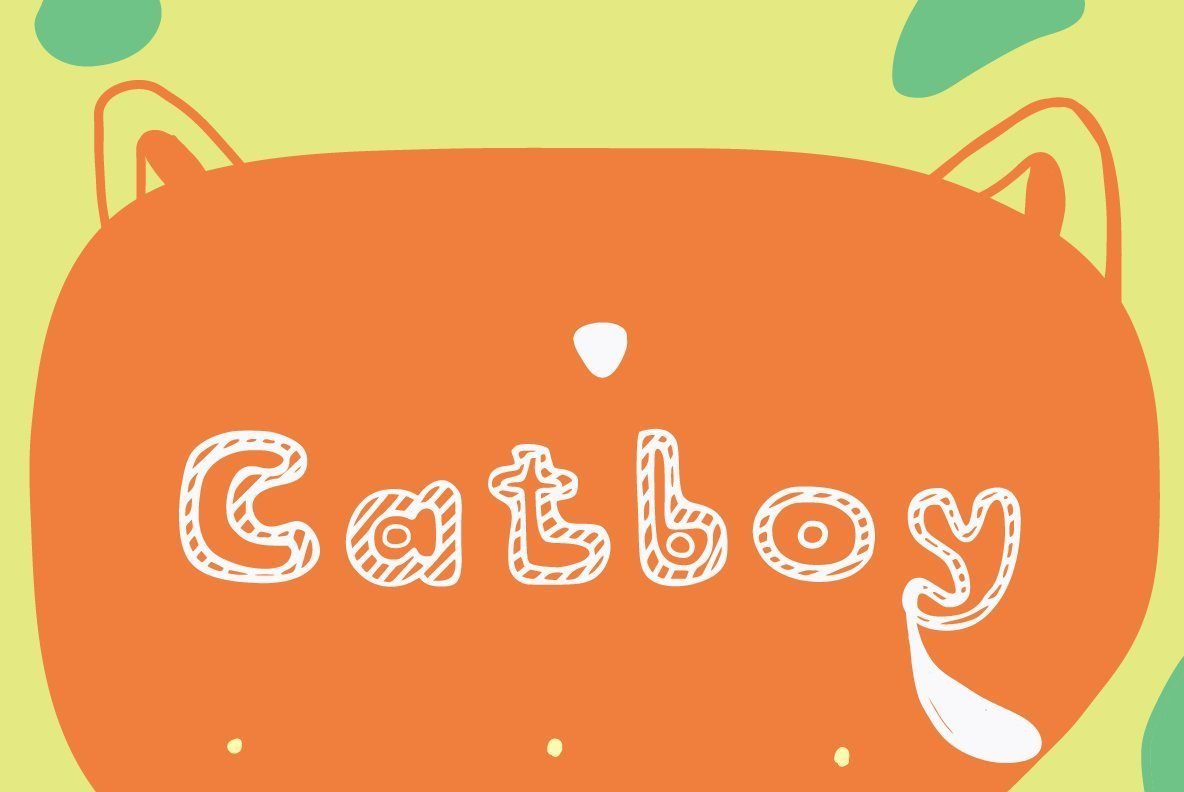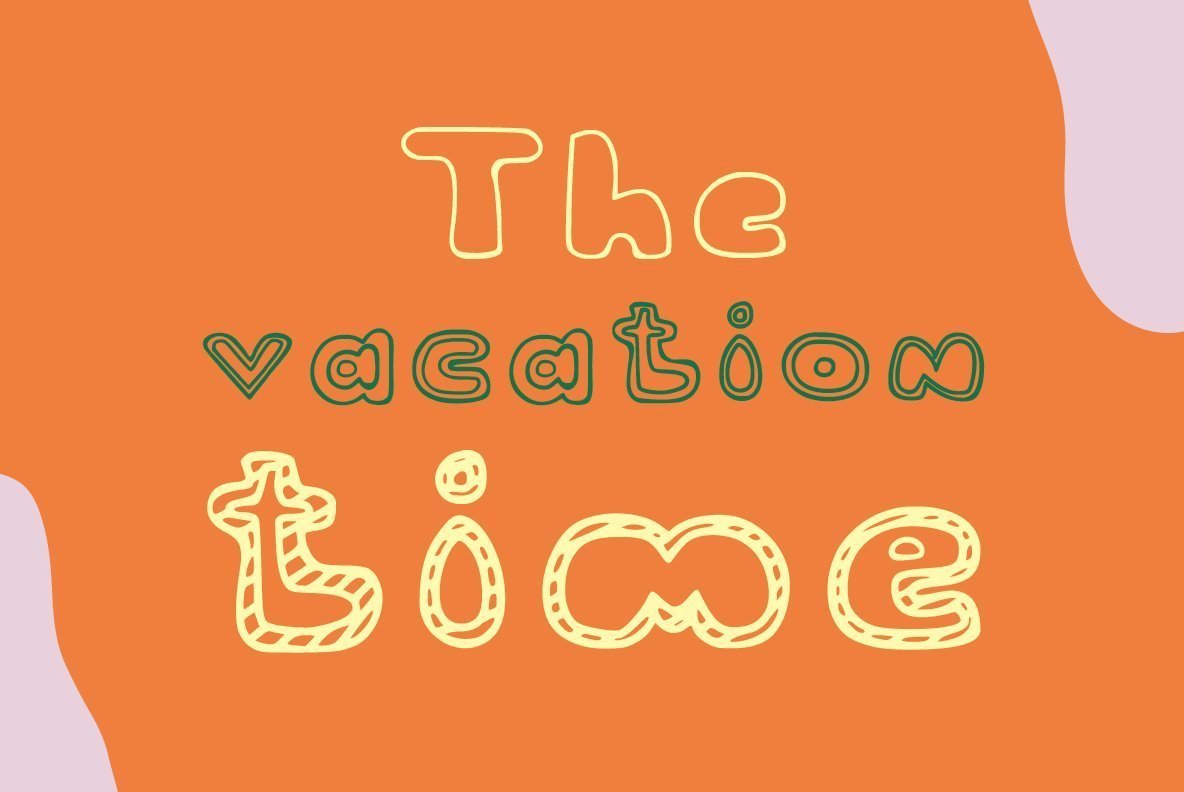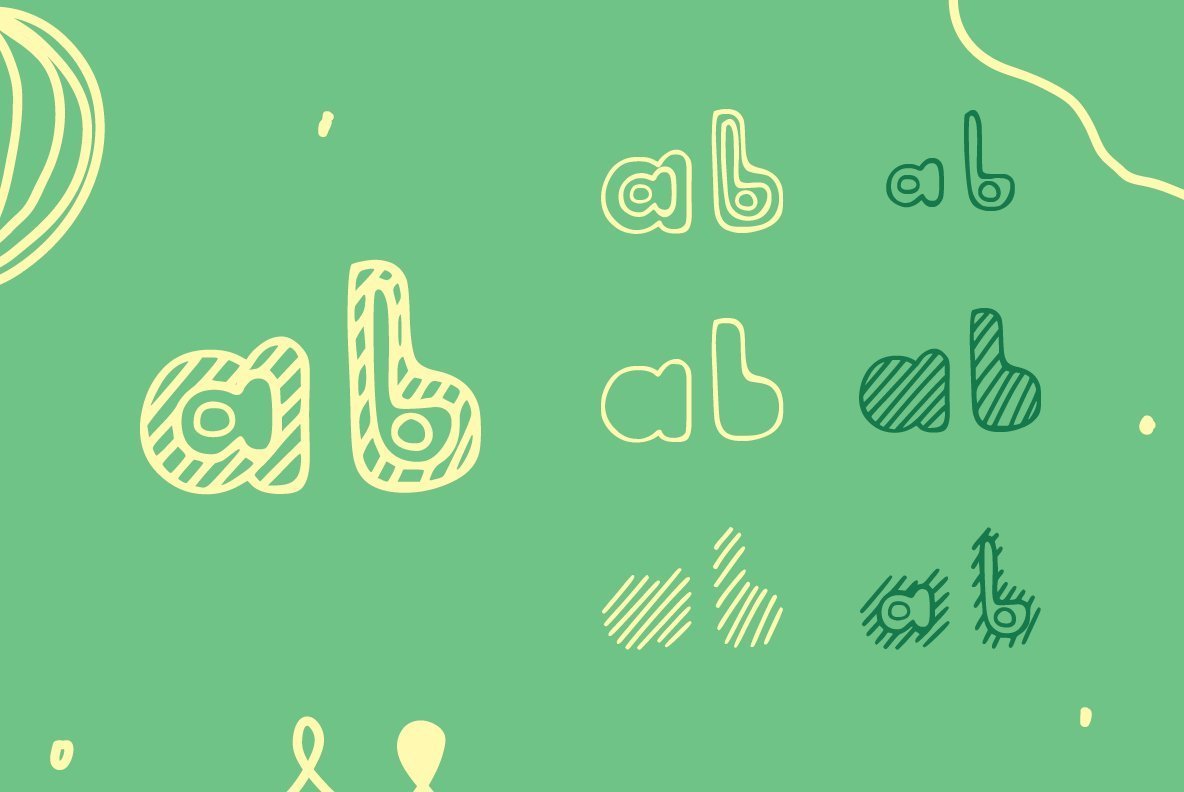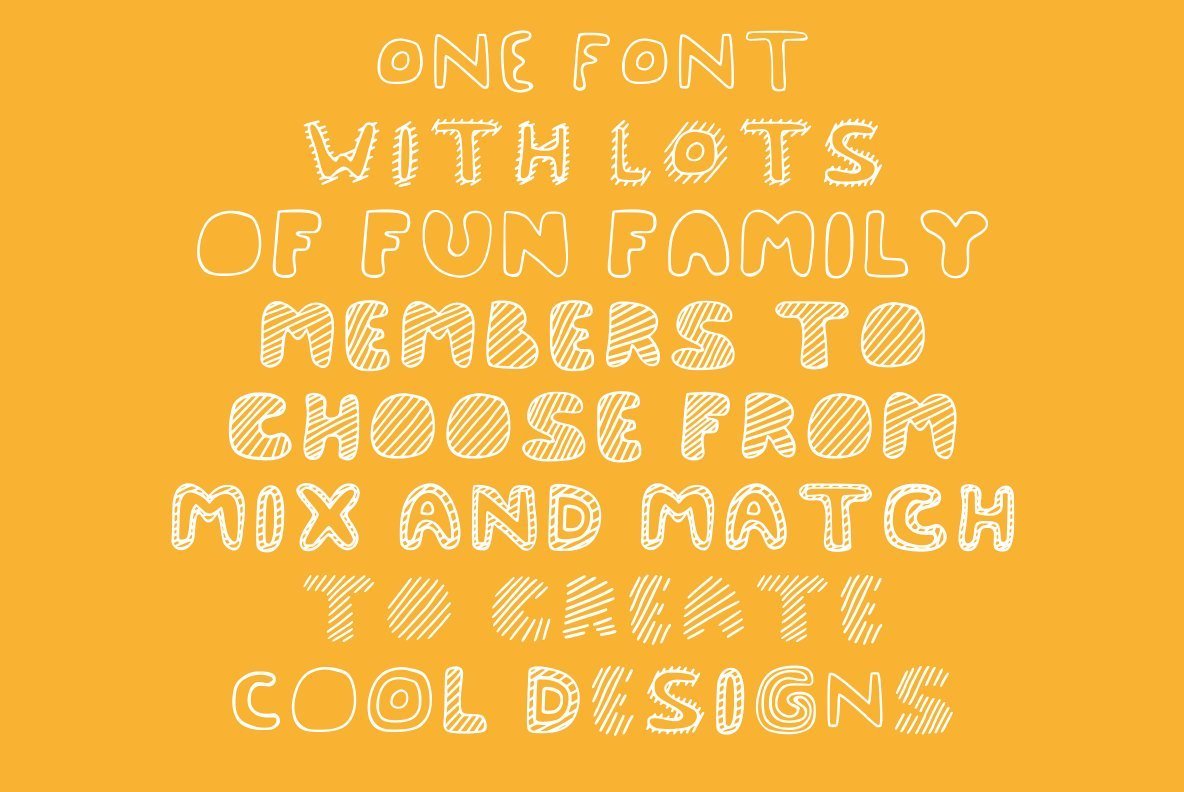
McCool is cool, this font plays hard! Layered with stripes, a think outlined font and a smaller thin font this family can be combined to make a crazy collection of looks. All fun, all inspired by our doodles we did in school while day dreaming, McCool deliveries nostalgia, playfulness and a child like creativity by the bag full. The font can be utilised in lots of different ways in fact there is one font that can be used in seven different ways will defiantly produce some amazing looking designs.. A nifty font that is great fun to play with, how cool is that?